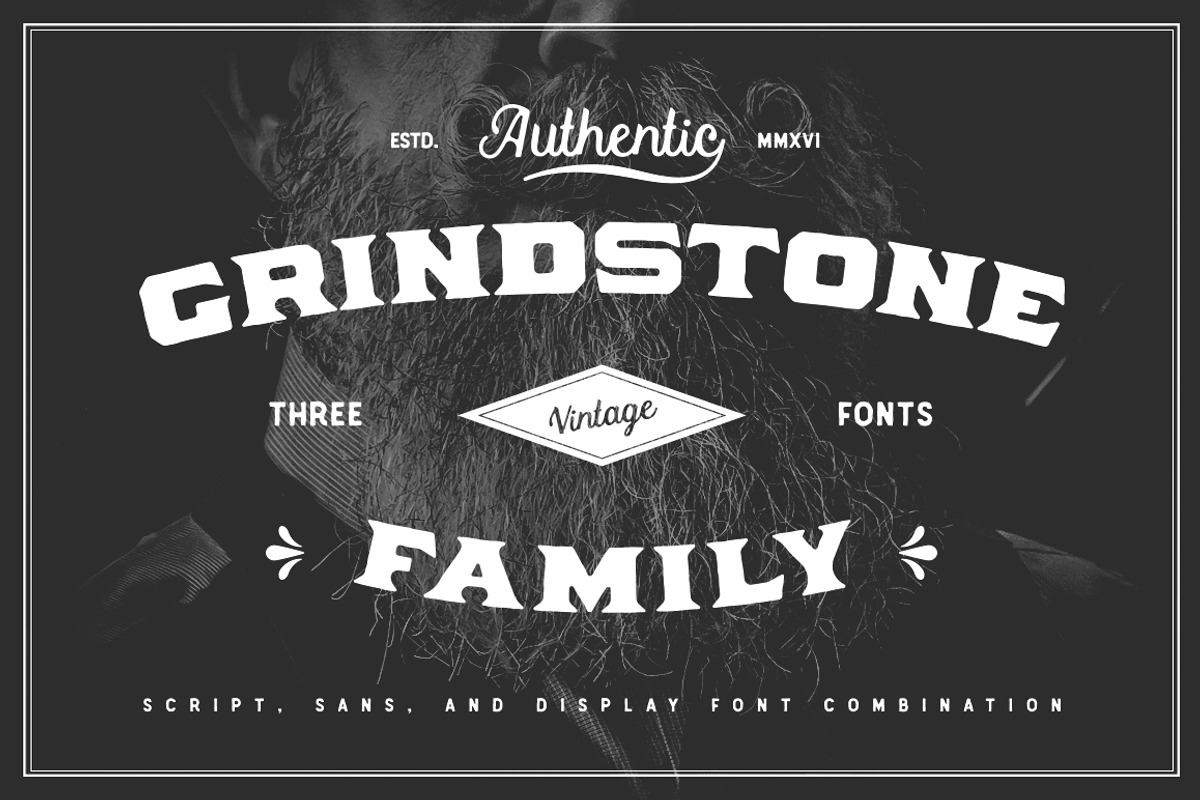
Grindstone Font Family Free Download
Grindstone Font Free Download
Grindstone Font Free Download is a versatile and robust font family designed to bring both strength and style to your designs. With multiple weights and styles, this family offers a perfect balance of modernity and tradition, making it ideal for a wide range of creative applications, including branding, packaging, posters, headlines, and editorial design.
The Grindstone Font Family includes serif and sans-serif options, giving you the flexibility to use different variations for a cohesive design system. Each font has been meticulously crafted to ensure legibility and impact across various media, whether digital or print.
Whether you’re building a contemporary brand, designing a magazine spread, or creating promotional materials, Grindstone Font Free Download adds sophistication and strength to your typography. Feel free to test it in personal or mockup projects, and be sure to secure the appropriate license for any commercial use. Enhance your designs with the versatility and boldness of this excellent font family.